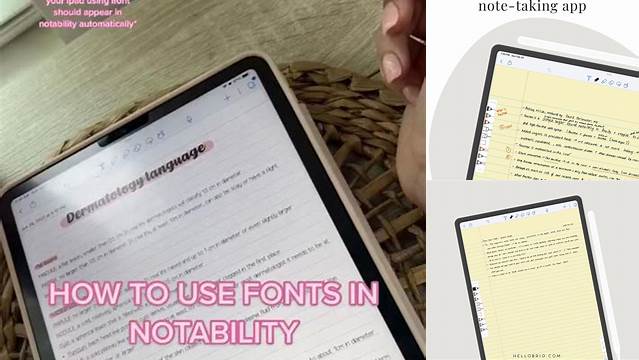
Free Fonts For IPad Notes: Best Options For Note-Taking
Hey guys! Ever felt like your iPad Notes app is missing that special something? You know, that personal touch that makes your notes uniquely you? Well, you're not alone! One of the easiest ways to spice up your note-taking game is by using free fonts for iPad Notes. Let's dive into the world of typography and discover how to make your notes both beautiful and functional.
Why Bother with Different Fonts?
Before we jump into the font frenzy, let's quickly chat about why fonts even matter. Using different fonts can significantly enhance your reading experience. A well-chosen font can improve readability, reduce eye strain, and even boost your memory retention. Plus, let's be real, a stylish font just makes your notes look way cooler! So, finding the right free fonts for iPad Notes is more than just aesthetics; it's about optimizing your entire note-taking process.
1. Understanding Font Compatibility on iPad
Okay, first things first, you need to know how fonts work on your iPad. The iPadOS has some built-in fonts, but you're not limited to those. You can install custom fonts to give your notes a personalized flair. However, not all apps support custom fonts, so it's essential to check compatibility. Most note-taking apps like GoodNotes, Notability, and, of course, Apple Notes allow you to use custom fonts. Using free fonts for iPad Notes that are compatible with your chosen apps ensures a seamless and enjoyable experience.
1.1. Checking App Compatibility for Custom Fonts
Before you get too excited and download a bunch of fonts, make sure your favorite note-taking app supports custom fonts. Usually, you can find this information in the app's settings or help section. Look for options like "Font Settings" or "Custom Fonts." If you're still unsure, a quick Google search like "Does [App Name] support custom fonts?" should give you the answer. It's always better to be safe than sorry, right? Using free fonts for iPad Notes that work with your apps will save you a lot of headache later on.
1.2. System-Wide vs. App-Specific Fonts
Here's a neat trick: some fonts can be installed system-wide, meaning they'll be available in almost all apps that support custom fonts. Others might need to be added individually to each app. System-wide installation is usually easier and more convenient, but app-specific fonts can give you more control. When exploring free fonts for iPad Notes, check if the installation instructions specify system-wide or app-specific installation. This will help you choose the best approach for your needs.
2.2. Font Squirrel: High-Quality Free Fonts
If you're looking for fonts that are a cut above the rest, Font Squirrel is your go-to site. They carefully curate their collection to ensure that every font is high-quality and free for commercial use. Font Squirrel also offers a handy font identifier tool. Using free fonts for iPad Notes from Font Squirrel guarantees you're getting top-notch typography.
2.3. DaFont: A Vast Selection with Licensing Considerations